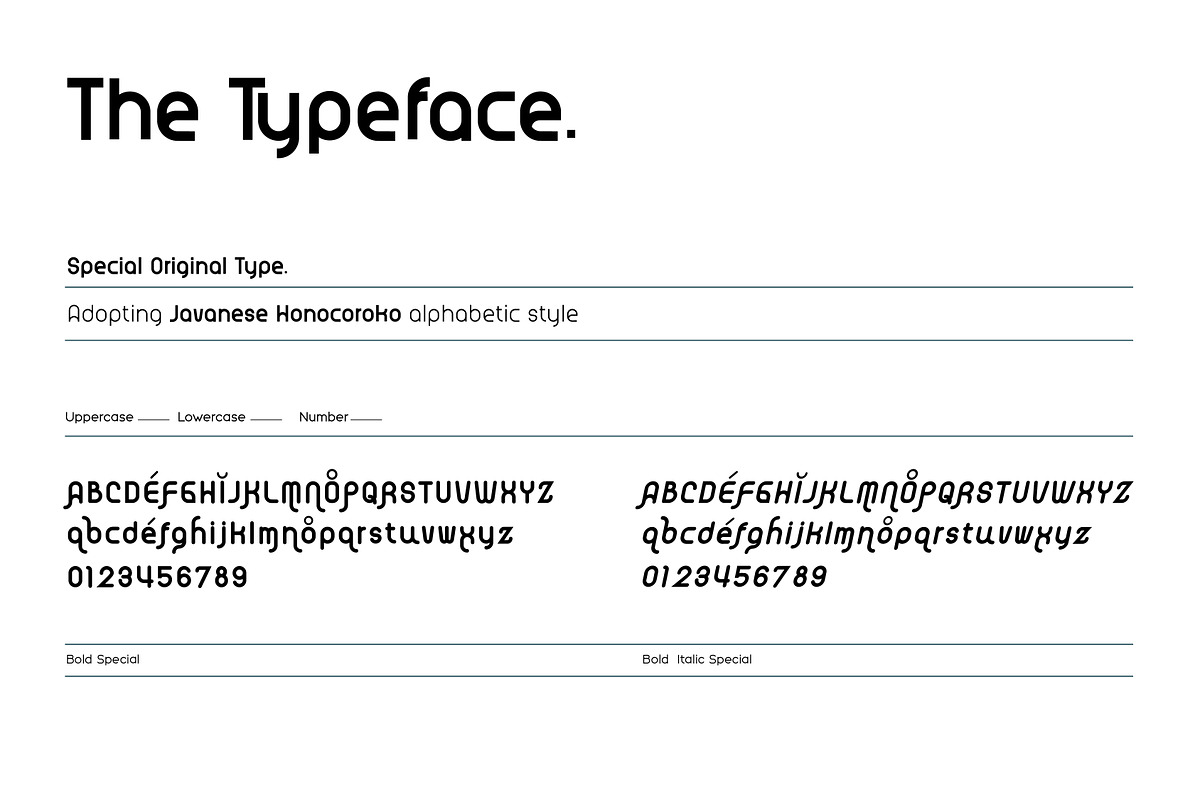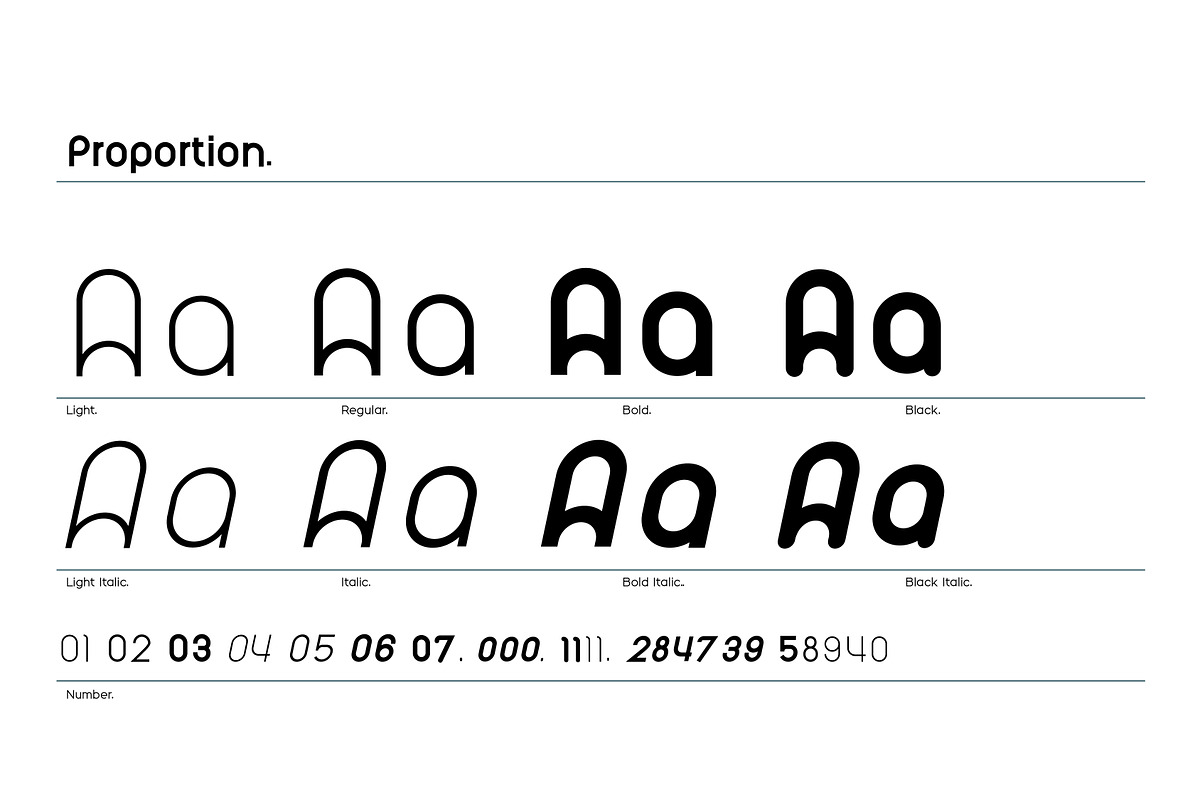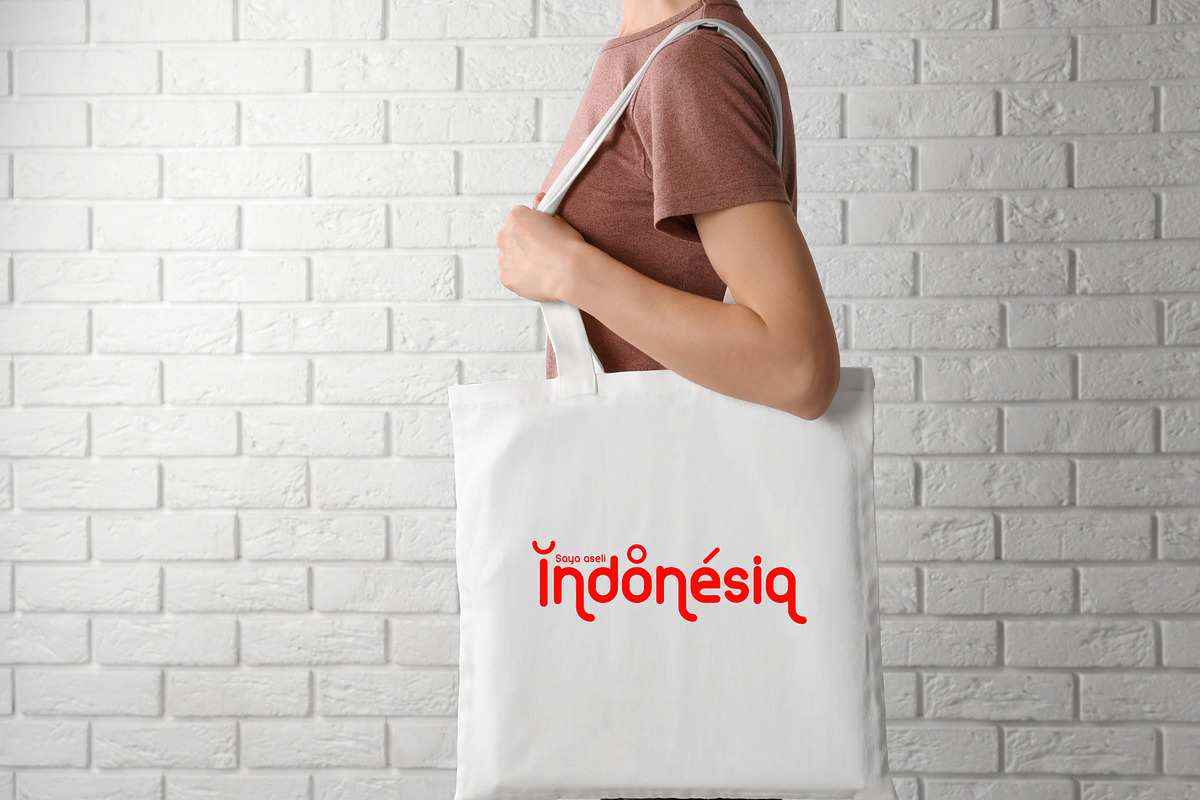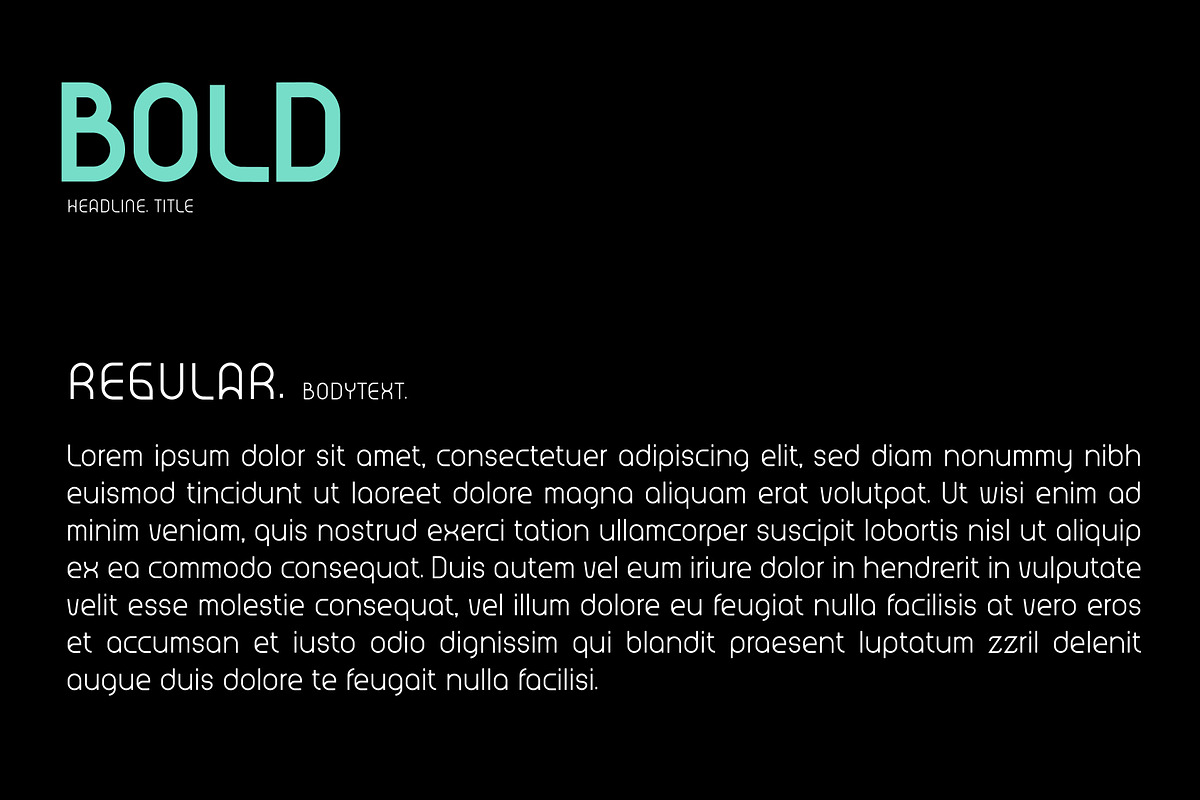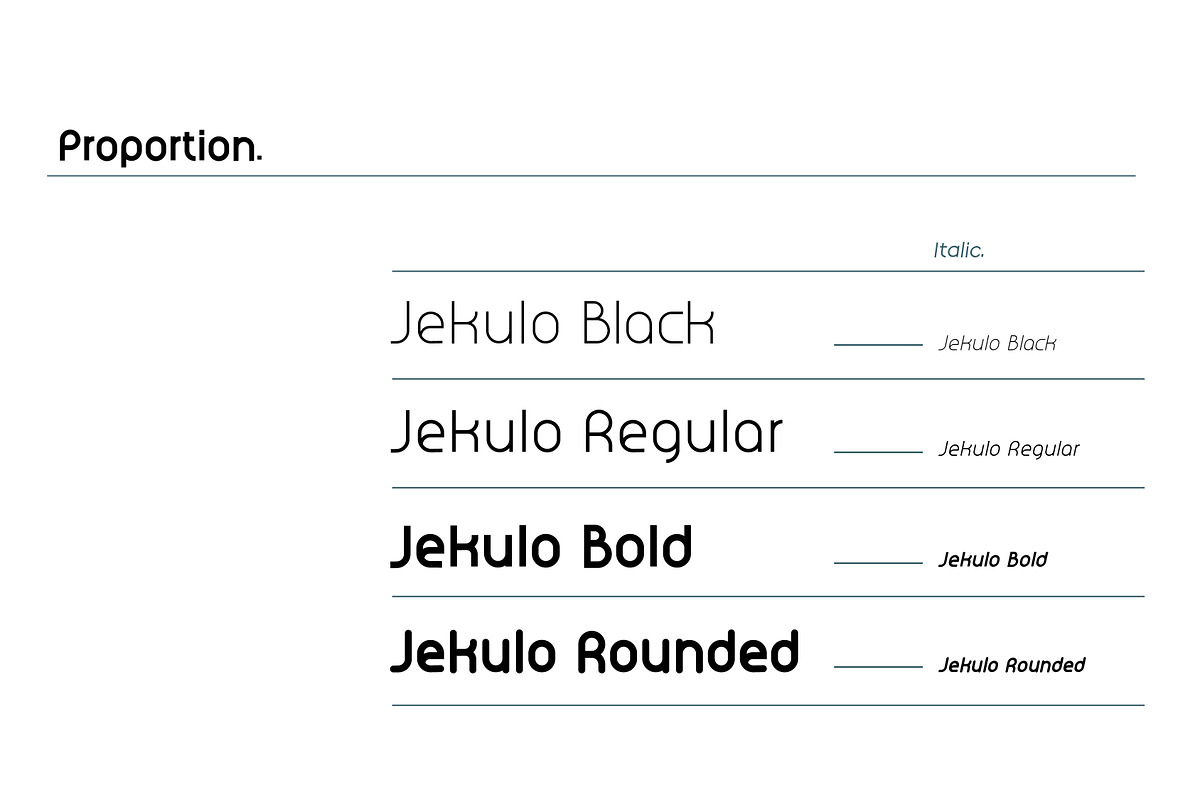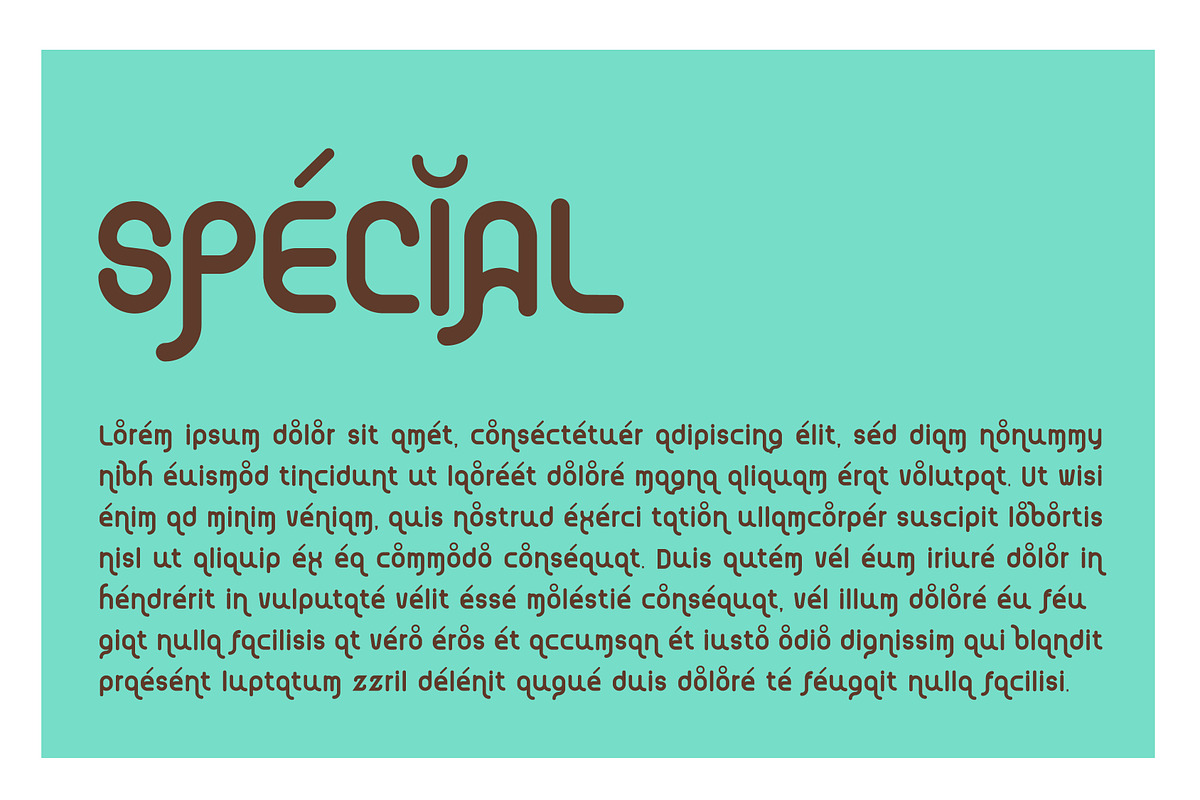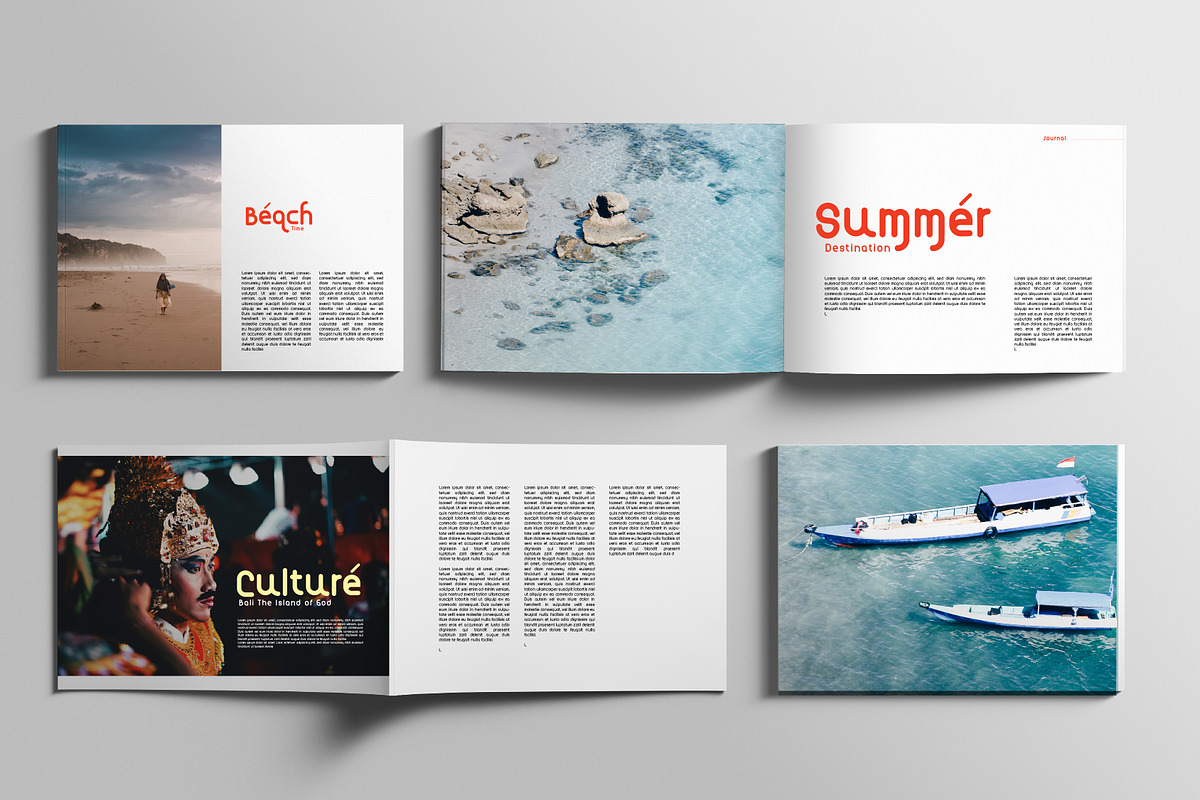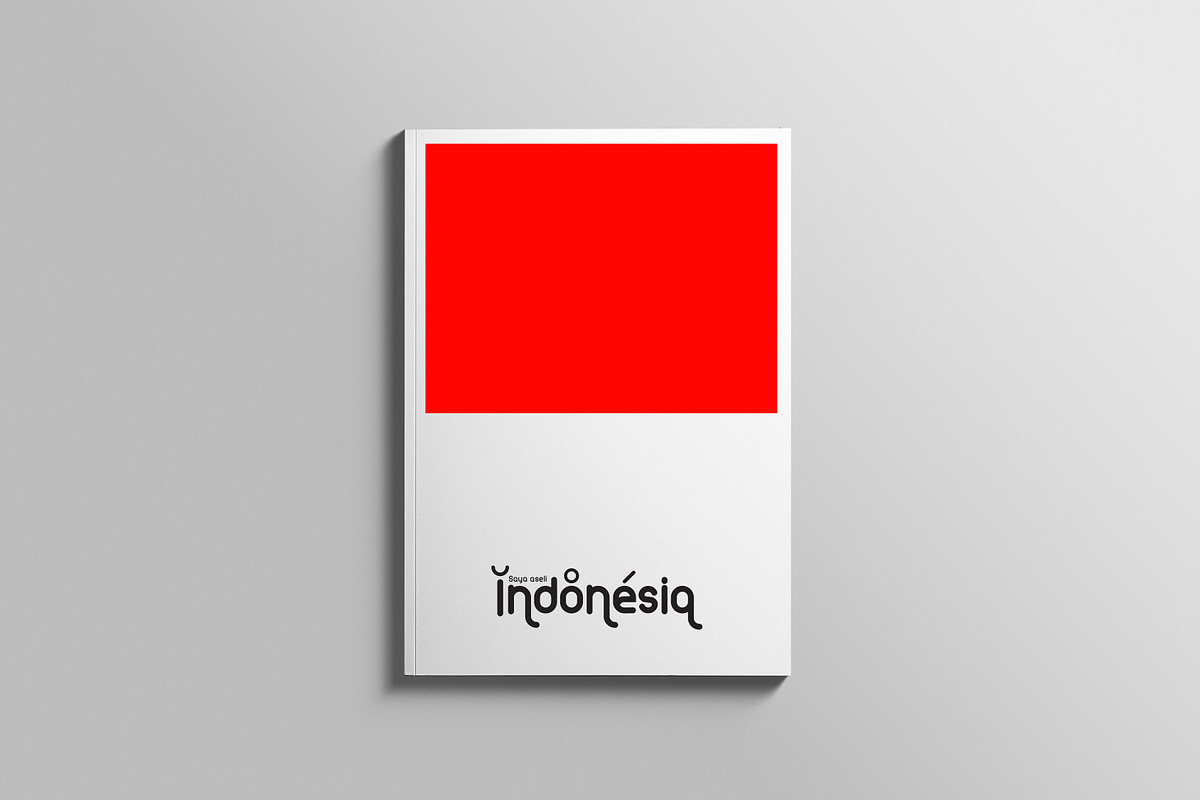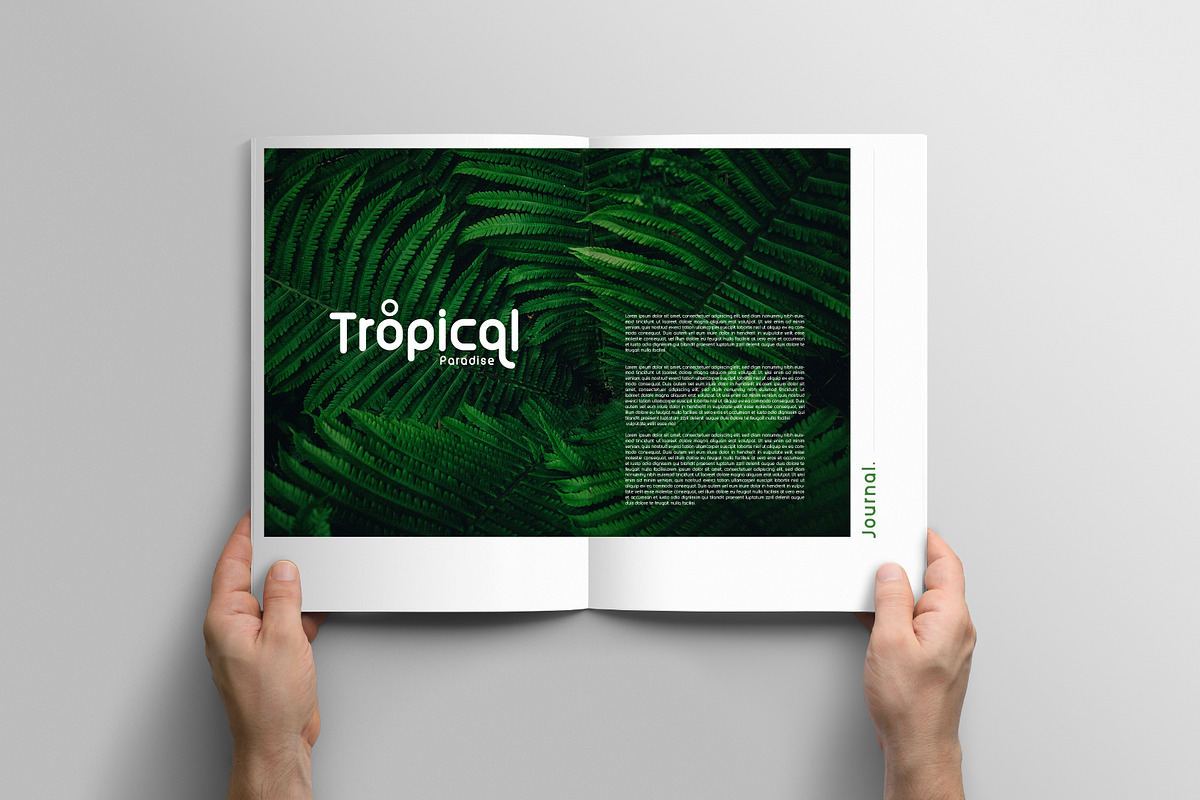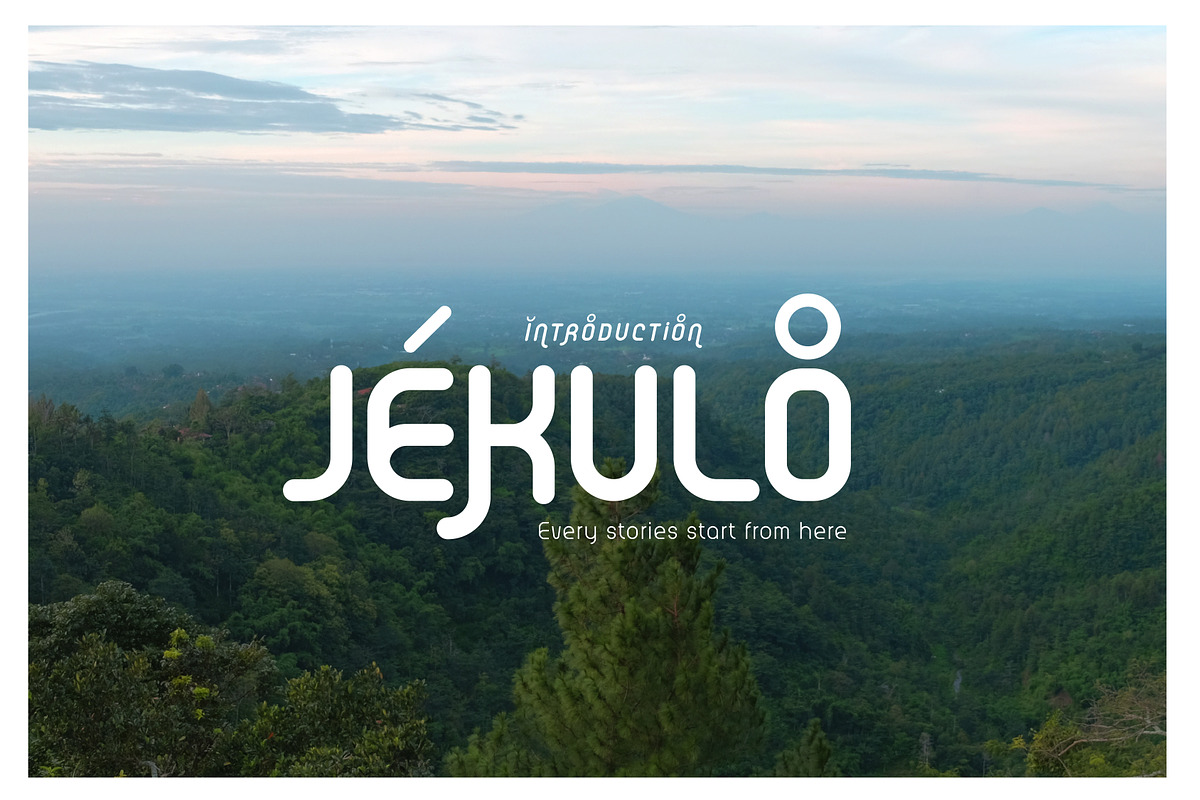
Jekulo Indonesia
Jekulo is minimalist sophisticated modern heritage Indonesia typeface
It’s inspired by place I was born. Jekulo village, kudus, Central Java, Indonesia.
Typeface
- Jekulo Light. for Caption
- Jekulo Regular. for Bodytext
- Jekulo Bold. for Headline and subhedline
- Jekulo Special. for Logo and Typography experiment